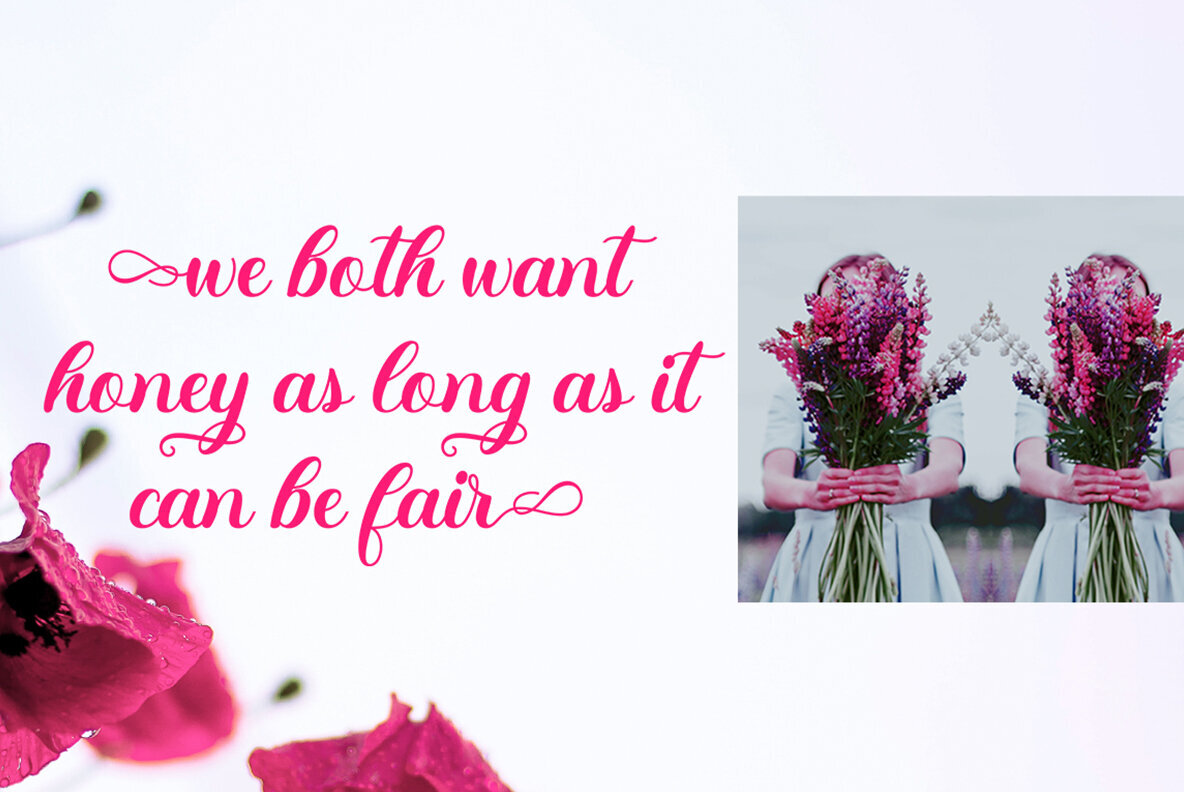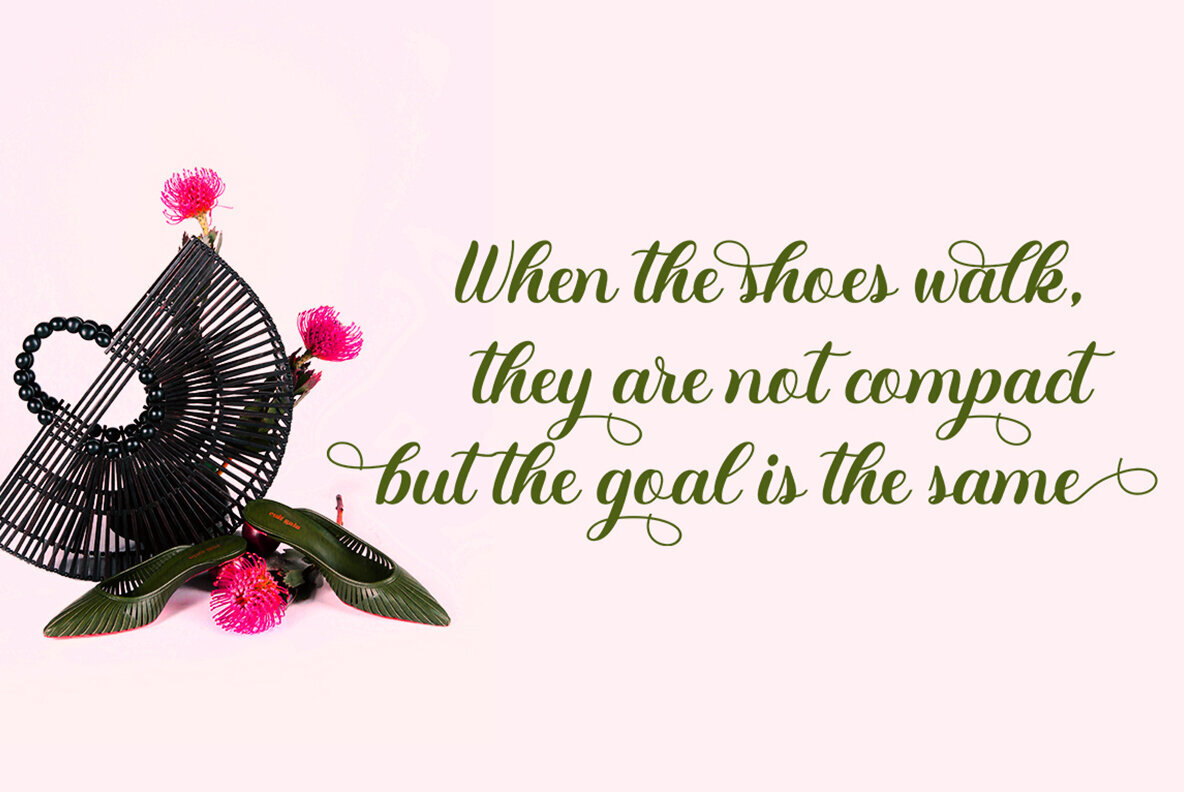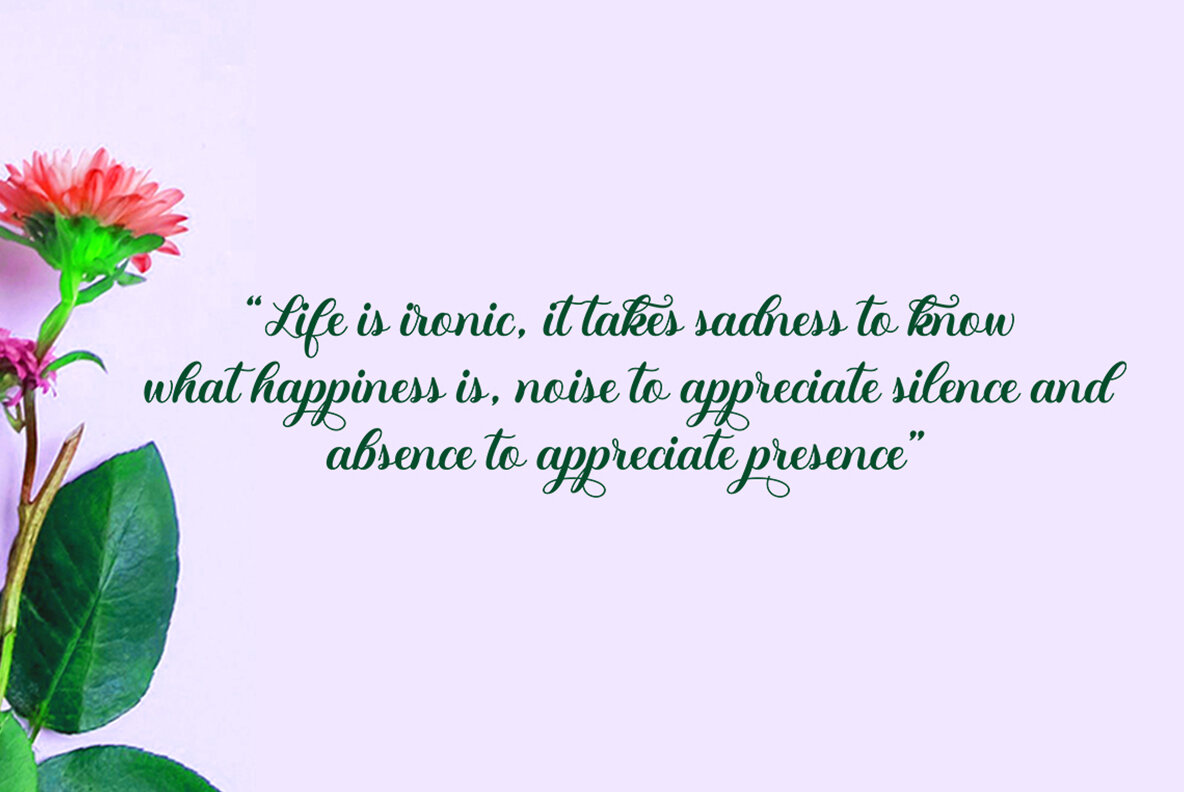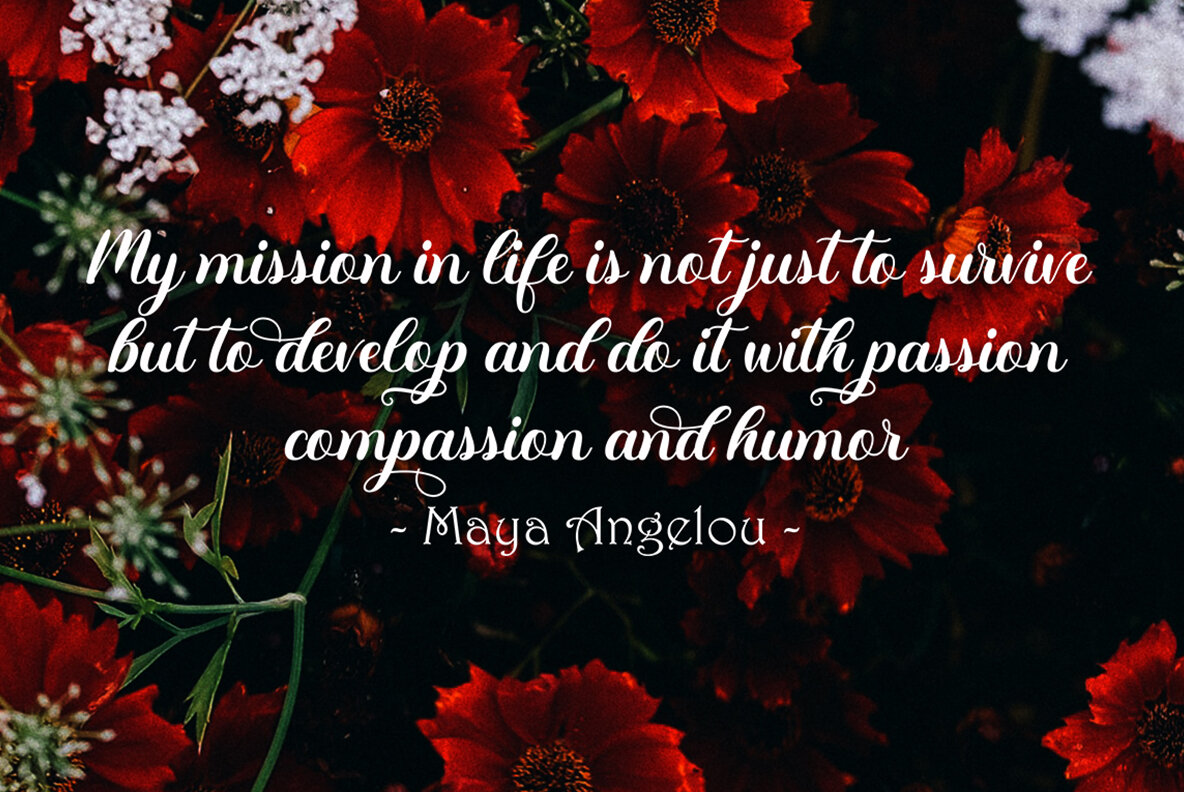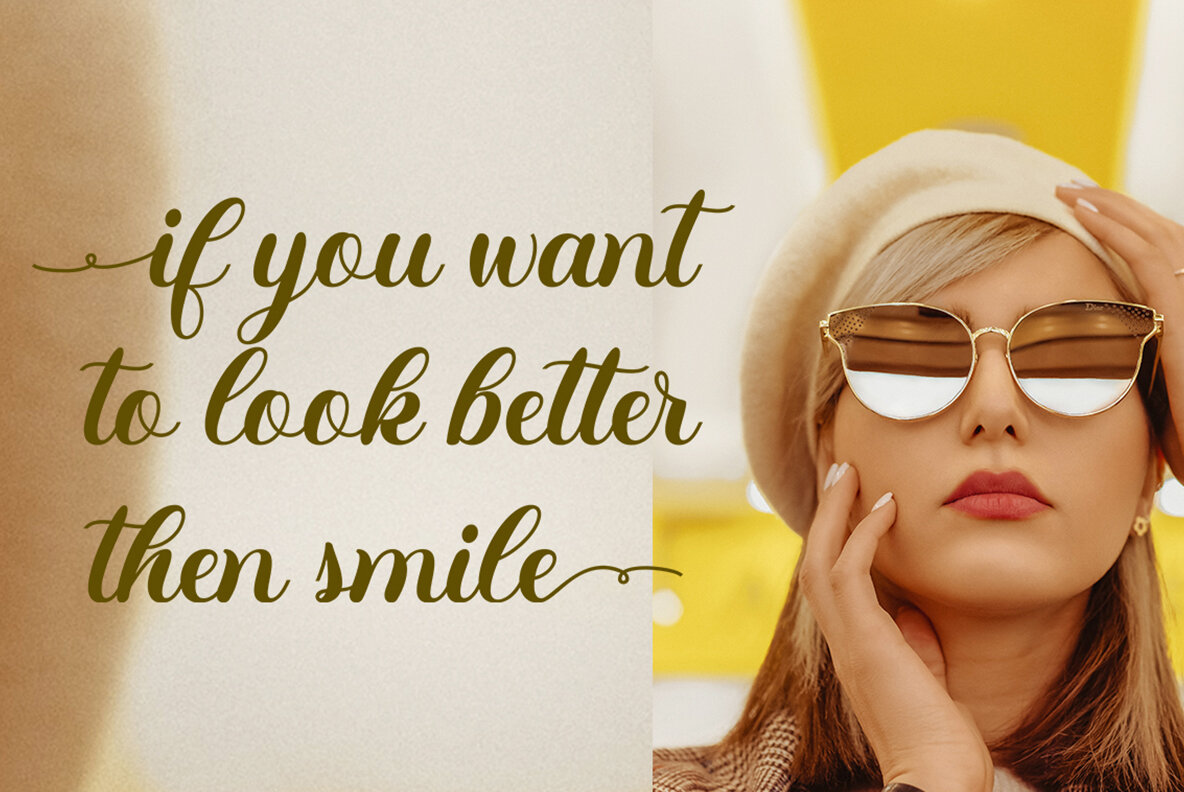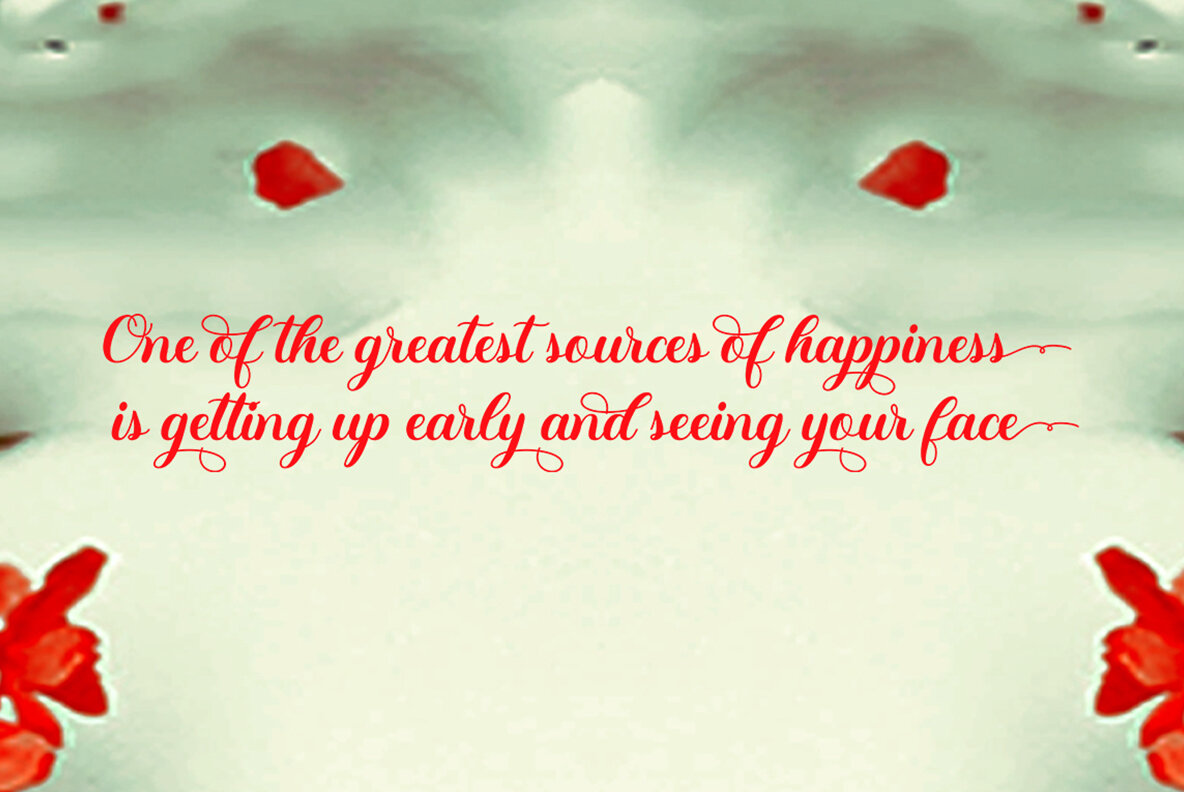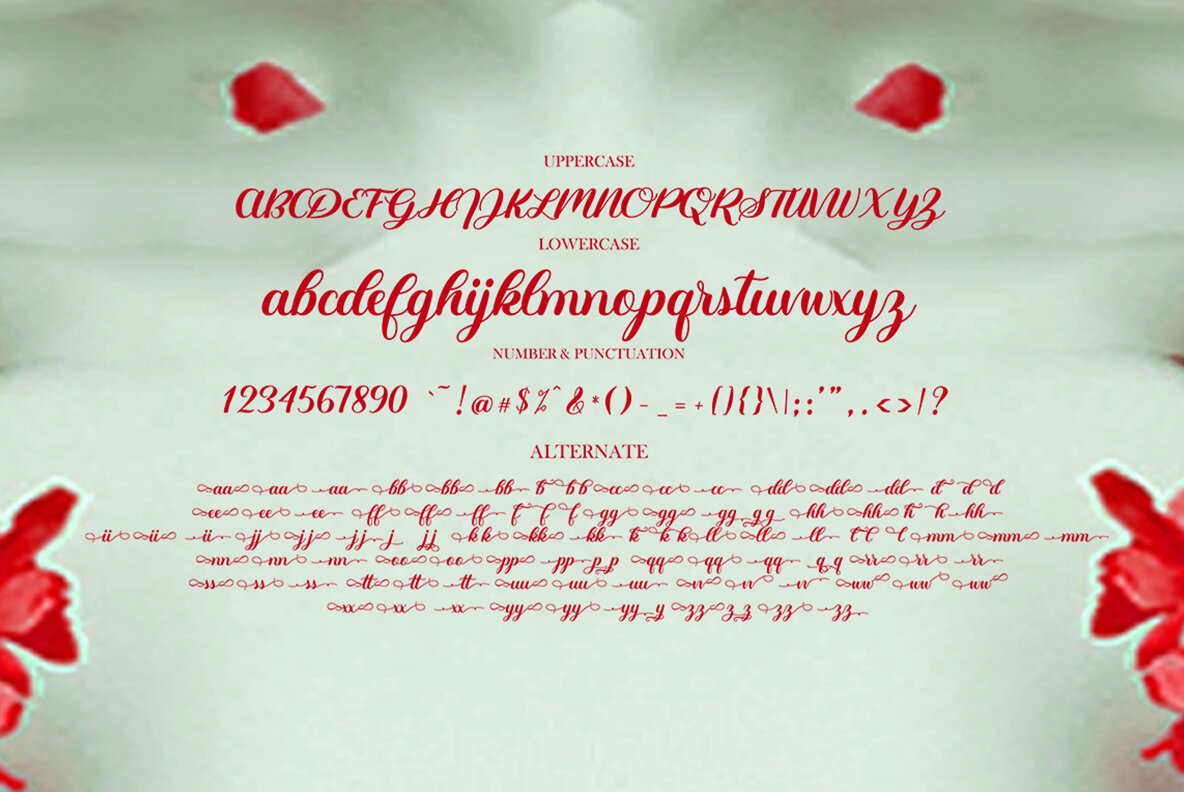
Sweden Love Font
Sweden Love
Sweden Love is an elegant script font characterized by a contemporary atmosphere and perfectly balanced shapes. It is designed to enhance the beauty of any project, striking a balance between thin and thick strokes. Sweden Love includes OpenType stylistic alternatives for enhanced creativity. To access these features, you'll need programs that support them such as Adobe Illustrator CS, Adobe Indesign, CorelDraw X6-X7, or Microsoft Word 2010 or newer versions. Accessing all alternative characters is easy with tools like Adobe Illustrator, as shown in this video guide. Sweden Love is coded with PUA Unicode, allowing full access to all additional characters without special design software. Mac users can use Font Book, while Windows users can utilize Character Map to view and copy characters into preferred text editors or applications. Learn how to access all alternative characters using the Windows Character Map in Photoshop with this video tutorial.Sweden Love: Elegant Script with Impeccable Shapes
Versatile Design Applications
OpenType Features and Accessibility